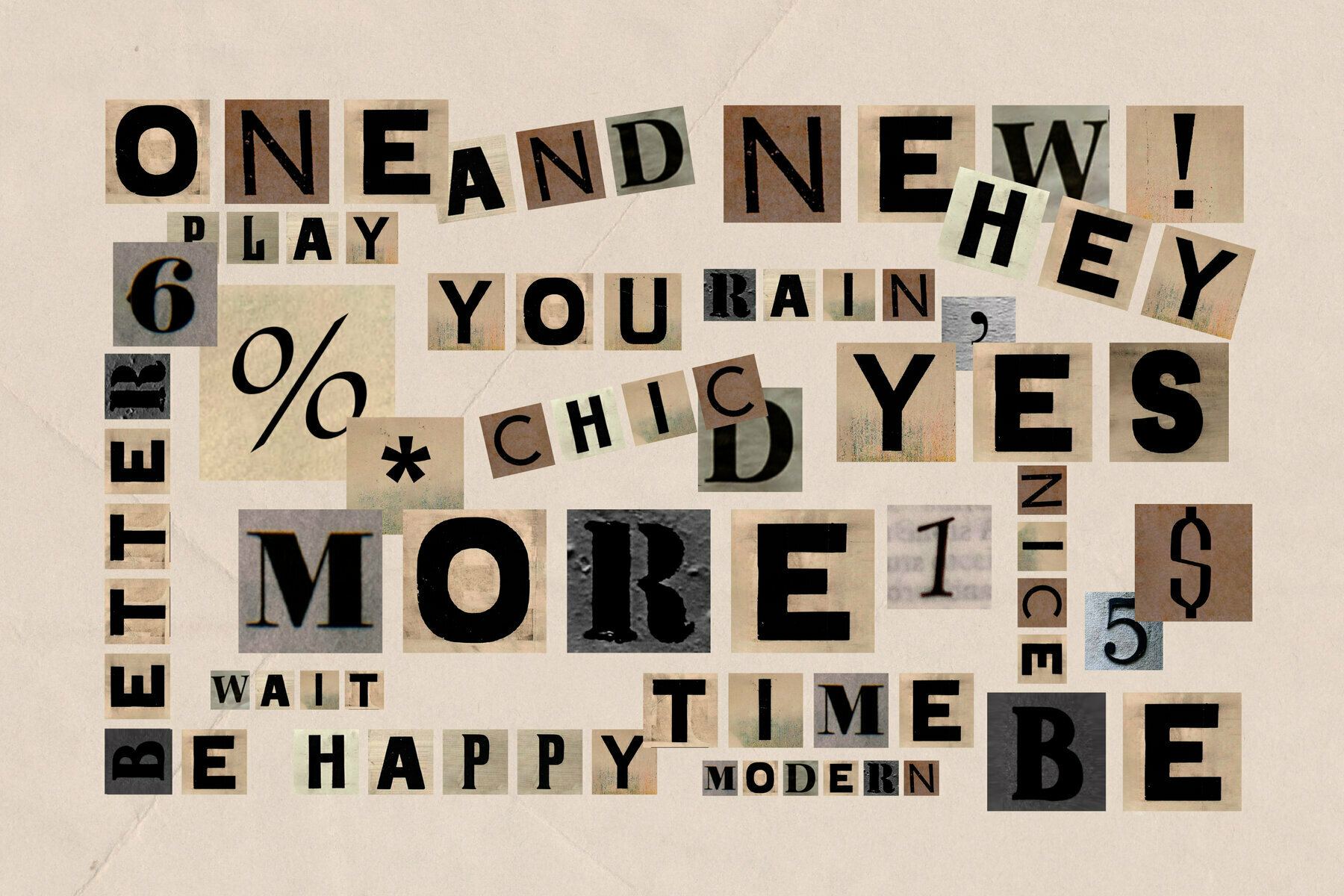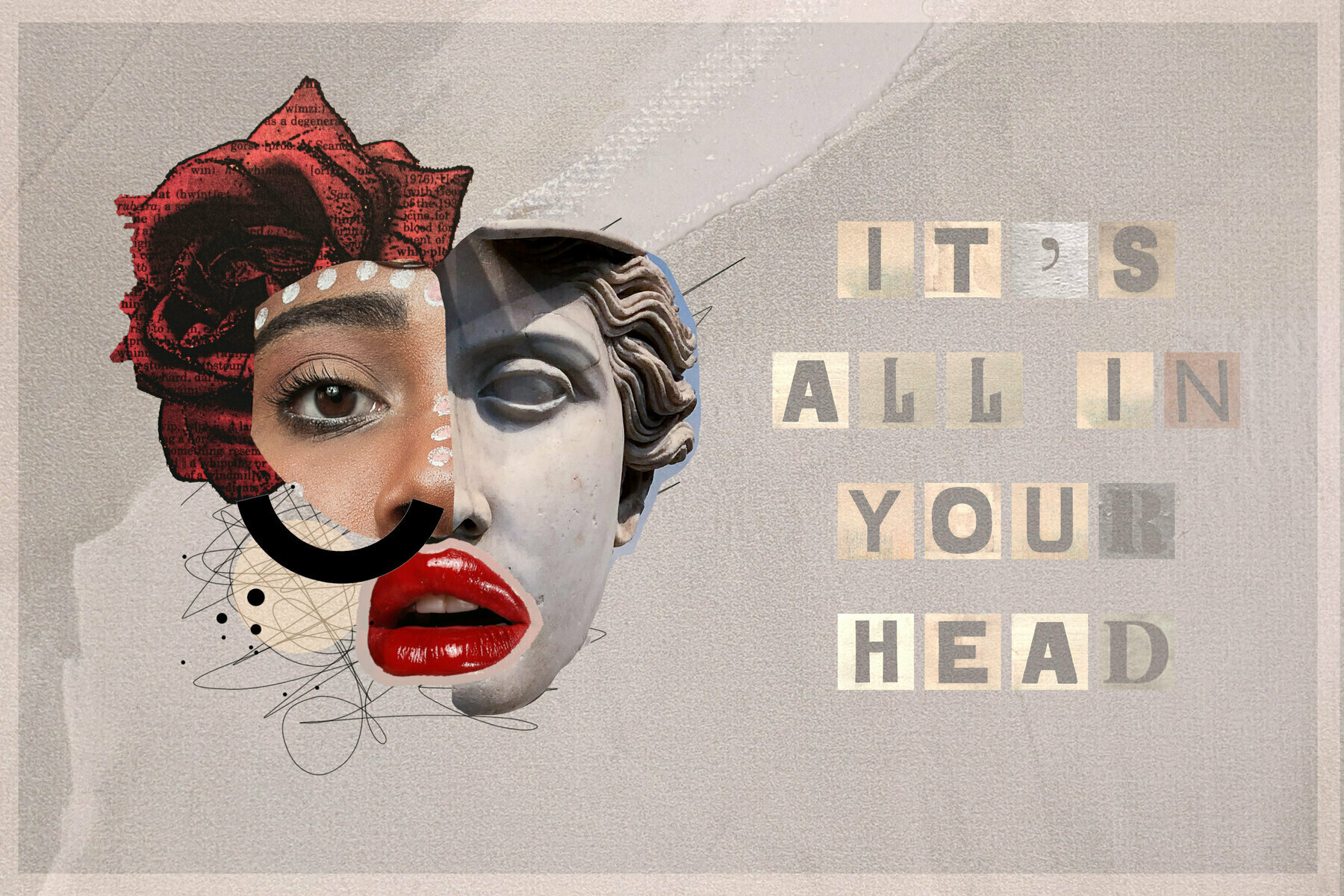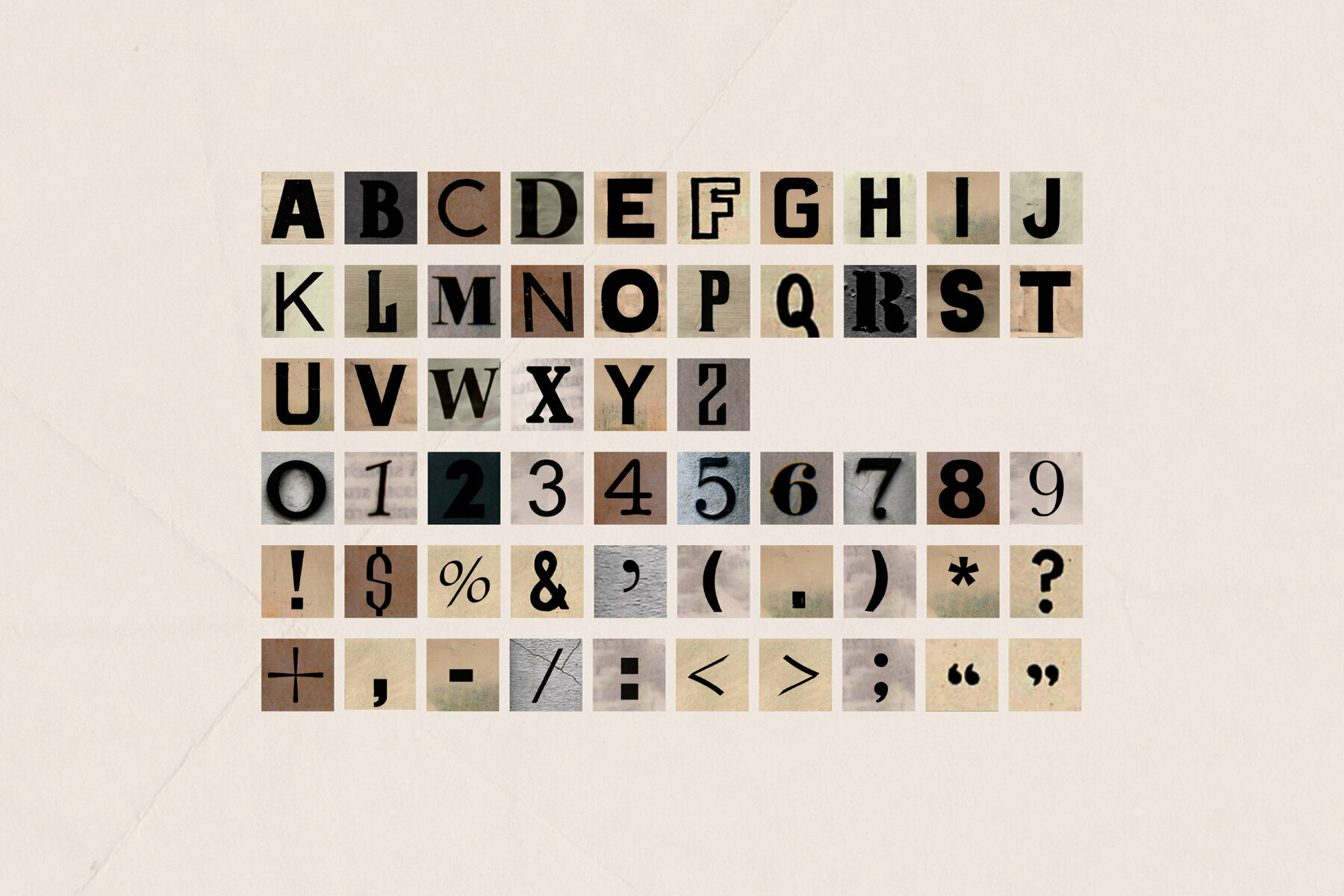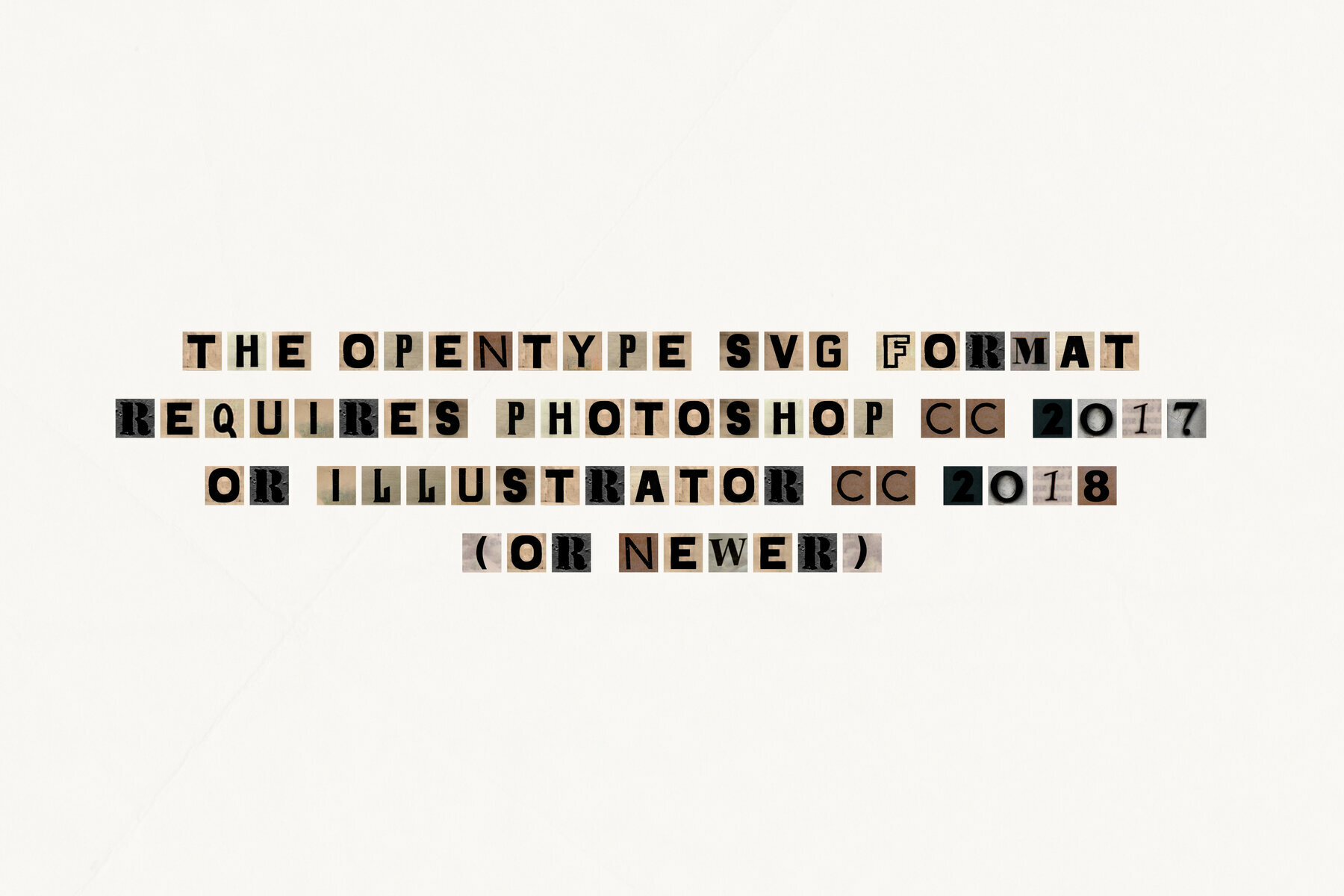
Craft Collage SVG Font
This font was inspired by clippings of old newspaper and collage trends.
- Opentype bitmap font that contains uppercase characters
- number 0-9 and a range of punctuation (OTF only)